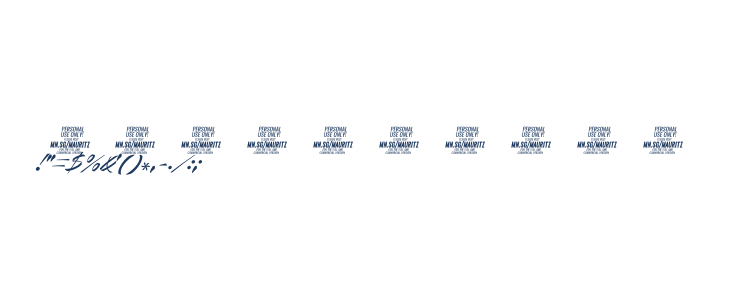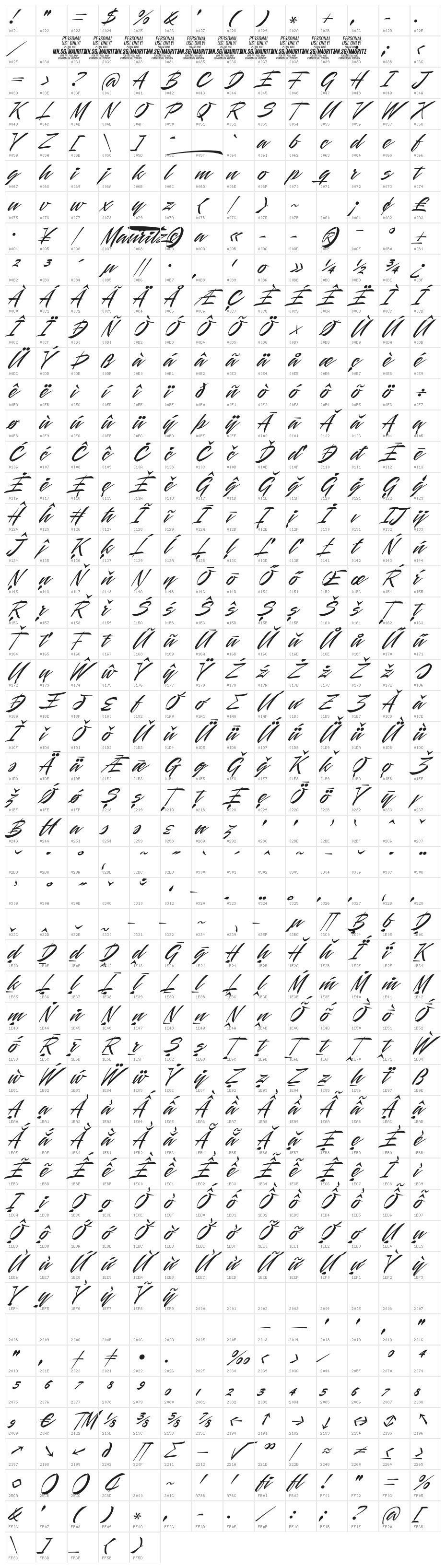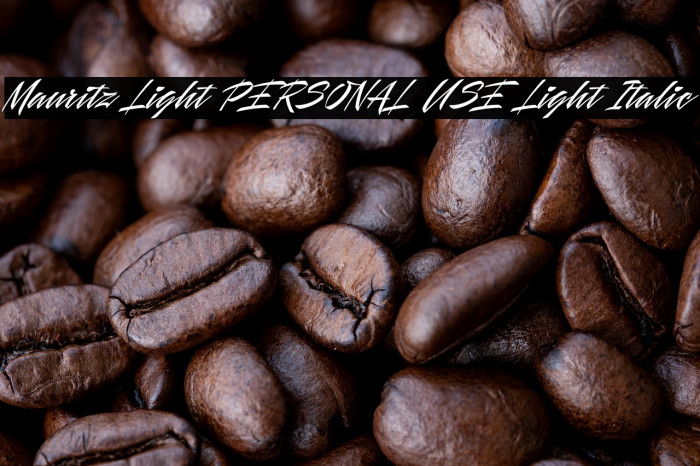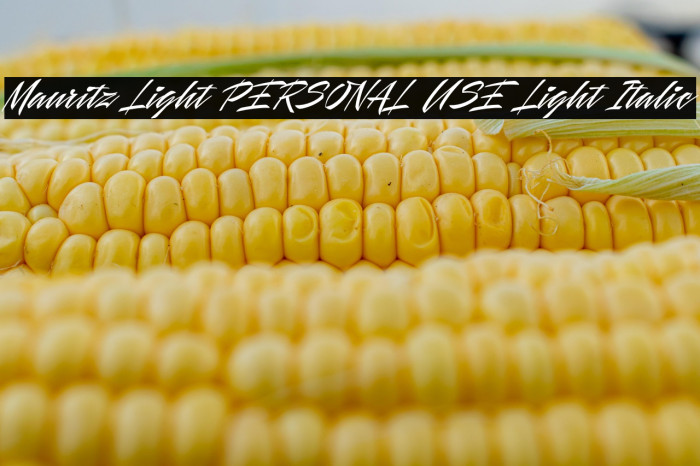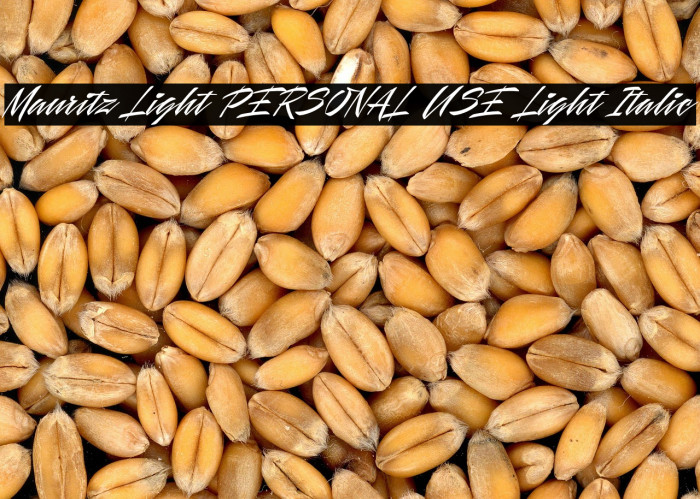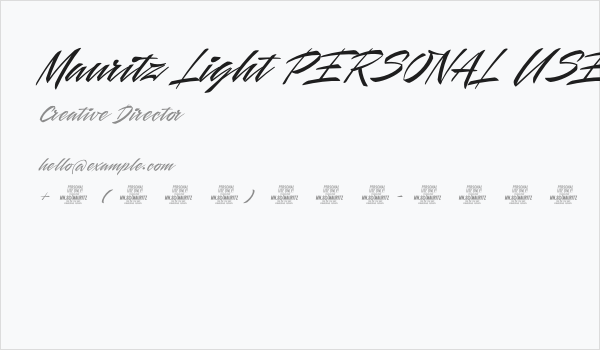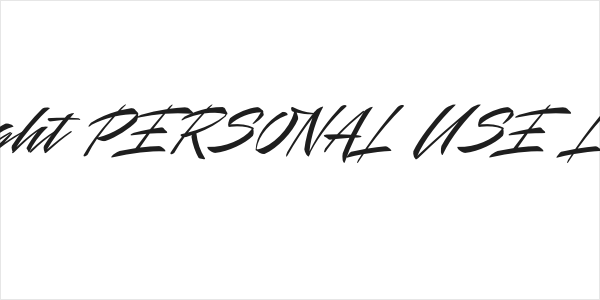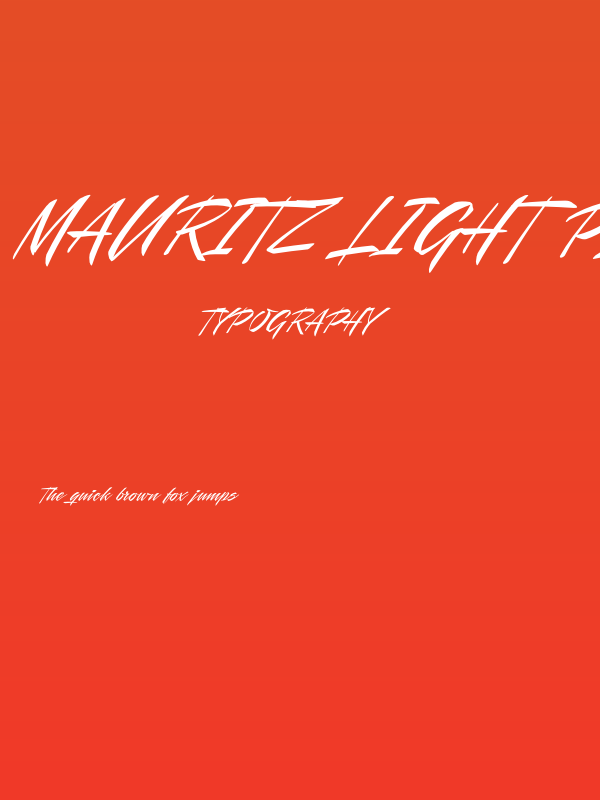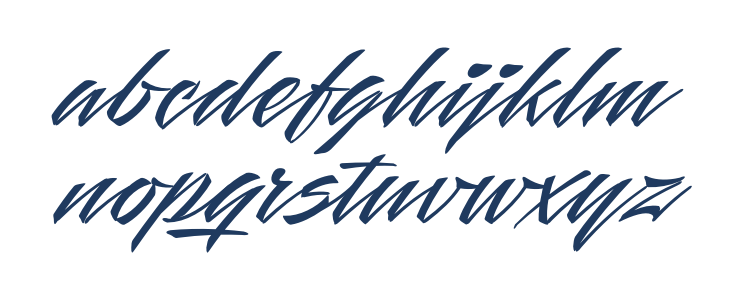
Mauritz Light PERSONAL USE Light Italic Font
Mauritz Light PERSONAL USE Light Italic Description
This font features a dynamic and flowing script style, characterized by its elegant and cursive letterforms. The strokes are smooth and connected, giving it a handwritten appearance. The uppercase letters are bold and slightly slanted, while the lowercase letters maintain a consistent flow with a slight italic angle. The font includes a full set of numerals and a variety of special characters, making it versatile for different uses. Its overall design is modern yet retains a classic script charm, suitable for projects that require a personal touch.